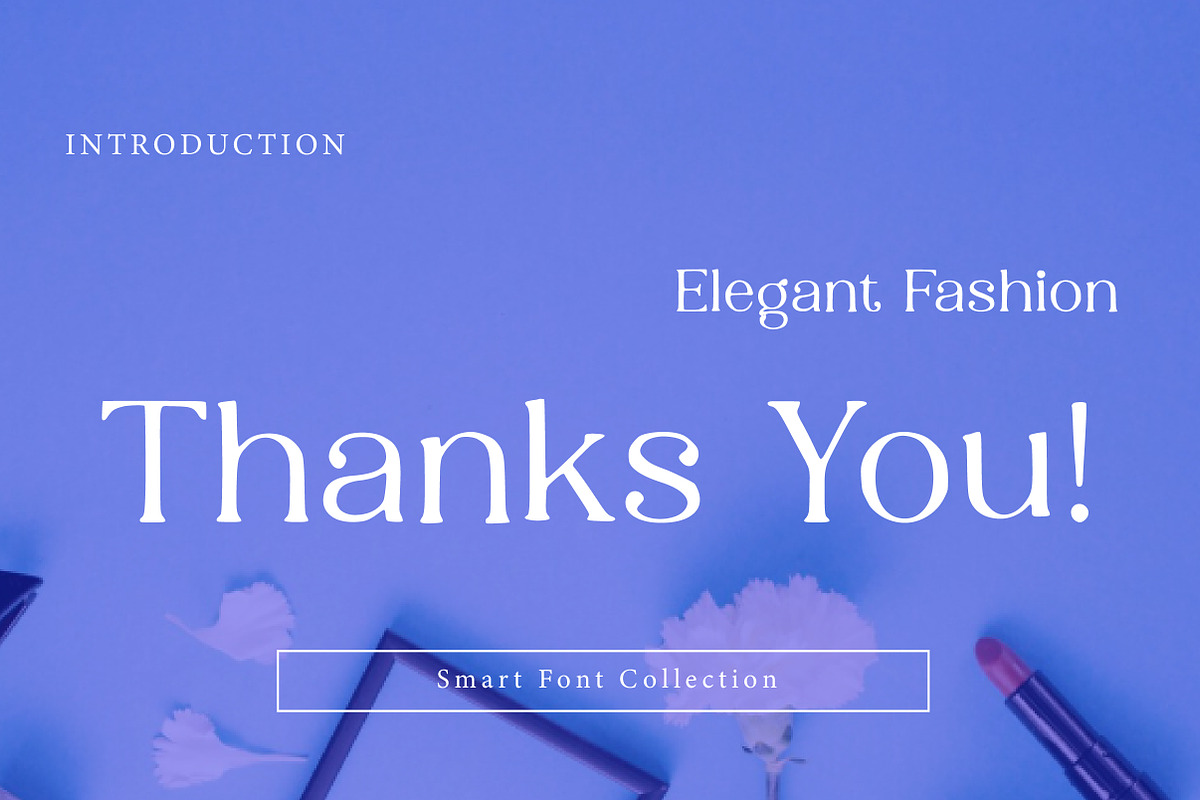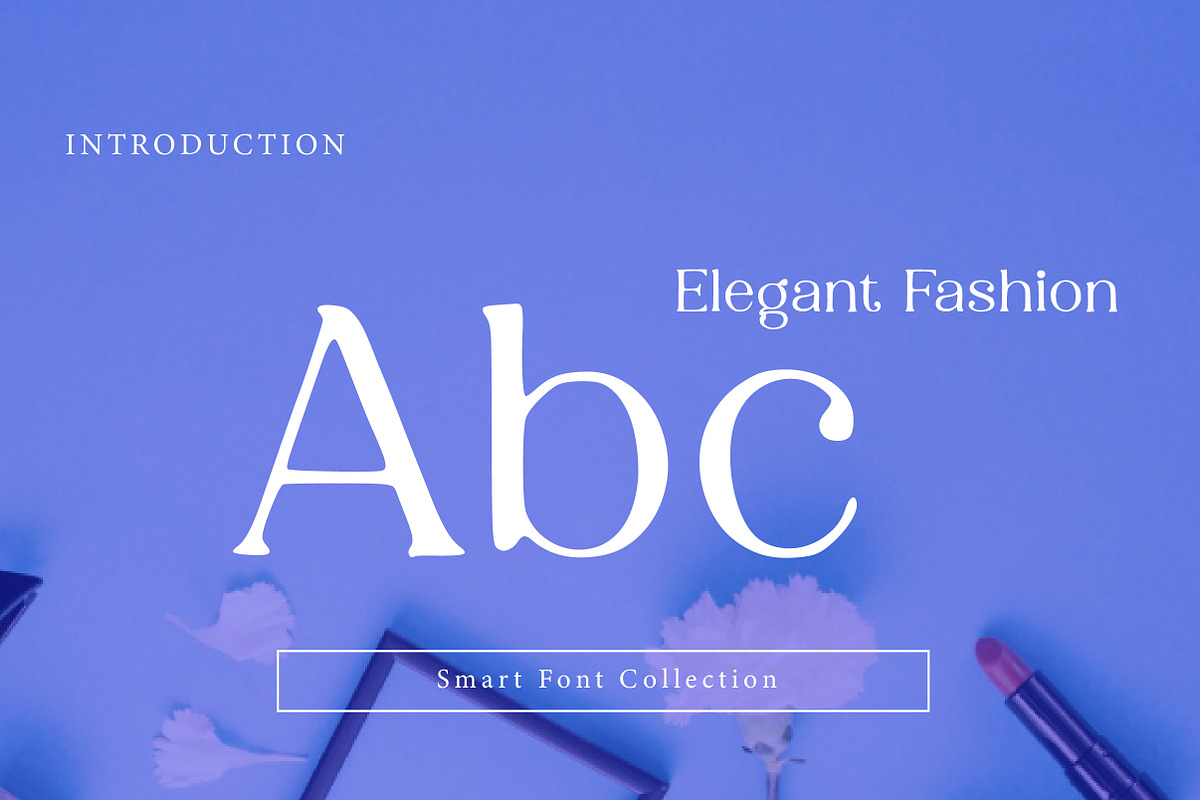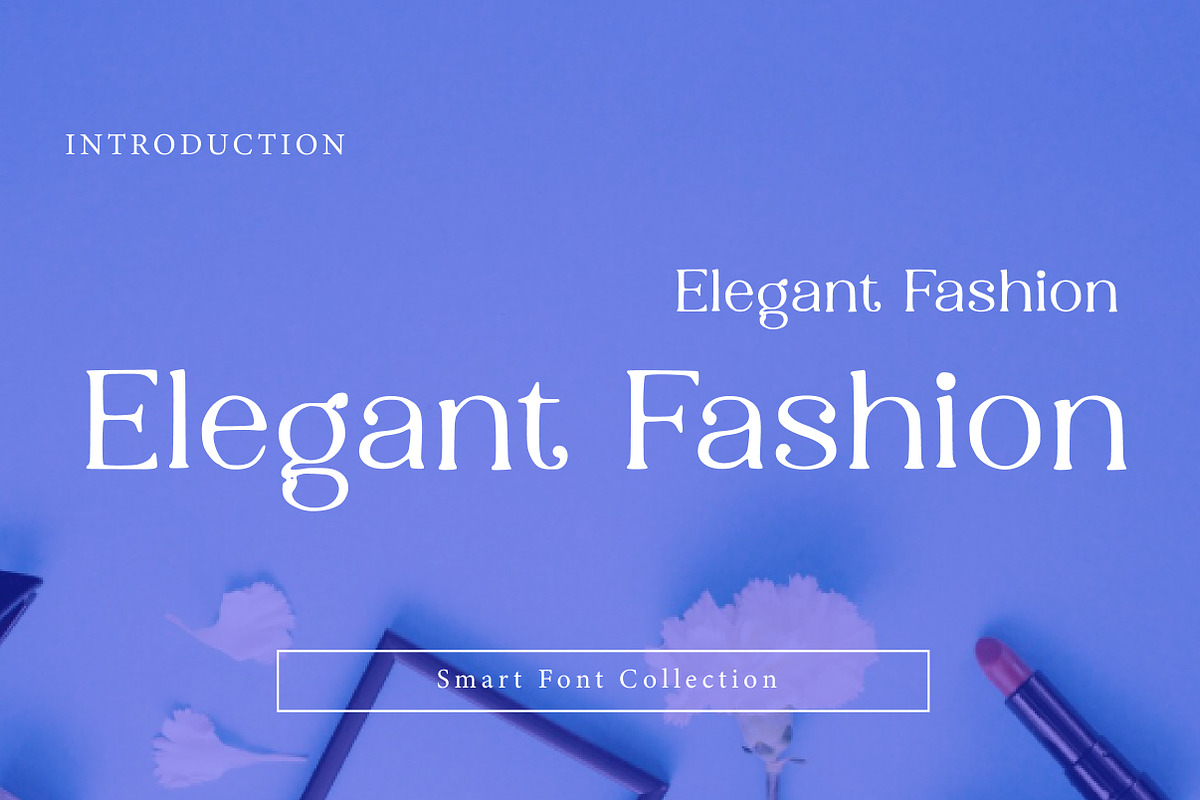
Elegant Fashion
Elegant Fashion is a clean, refined, and luxurious modern serif font designed to deliver a premium editorial and fashion-inspired look. With its stylish serif structure, smooth curves, and balanced proportions, this typeface is perfect for designers who want typography that feels high-end, modern, and timeless.
Inspired by fashion magazines and luxury branding, Elegant Fashion works beautifully for logos, branding, magazine titles, beauty product packaging, wedding invitations, premium advertisements, and elegant social media designs. The font’s classy character makes it a perfect choice for creating sophisticated typography that communicates elegance and exclusivity.
Whether you're designing a luxury brand identity, a fashion label logo, a magazine cover, or premium packaging, Elegant Fashion adds a stylish and polished serif aesthetic that elevates any design instantly. It is best used in headlines, titles, and logo designs where the elegant details can stand out clearly.